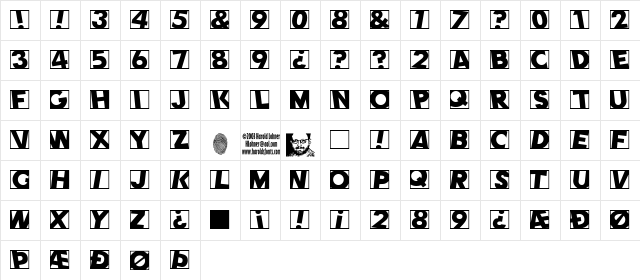
CometPositive Regular
| Copyright | COMET POSITIVE computer font v1.2 00 2003 Harold Lohner "  "https://www.haroldsfonts.com Inspired by the logo of Country Music Television (CMT) |
Design Context for CometPositive Typeface
CometPositive takes a measured approach to typography — its balanced proportions and neutral character make it a reliable workhorse for both digital and print work.